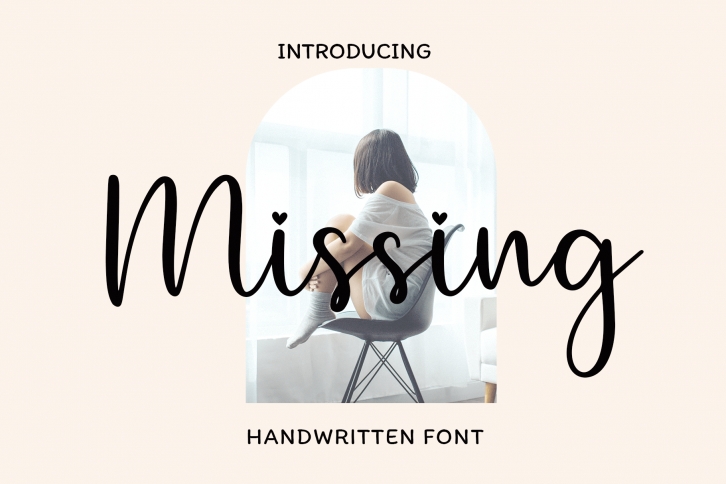
Missing is a delicate, elegant, and flowing handwritten font.
It has beautiful and well-balanced characters and as a result, it matches a wide pool of designs.